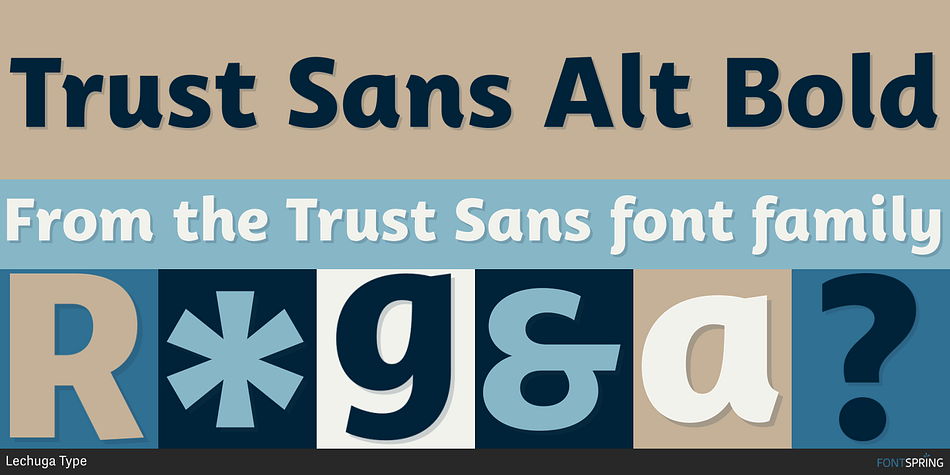
Trust Sans Alt Bold
Designed by Antonio Mejía Lechuga, Trust Sans is a sans serif font family. This typeface has twenty-four styles and was published by Lechuga Type.
A typeface specially designed for corporate identity. Trust Sans is a friendly typeface, with a flowing ductus and humanist features, specially created to help designers face everyday challenges. This font comes in a variety of weights—perfectly suited to establishing an effective typographic hierarchy—and contains an extensive character set, including small caps, different figure styles, case-sensitive forms, contextual and discretionary ligatures, etc. The family glyph set supports over 200 Latin-based languages. Trust Sans is composed of two complementary sub-families: a standard, formal font and an alternative, more casual, version. Each family comes in 6 weights, from Thin to Black, with matching true italics. All these characteristics make it an ideal typeface for a range of applications such as editorial design, immersive text, corporate identity, branding or packaging.
Foundry Lechuga Type
Designer Antonio Mejía Lechuga